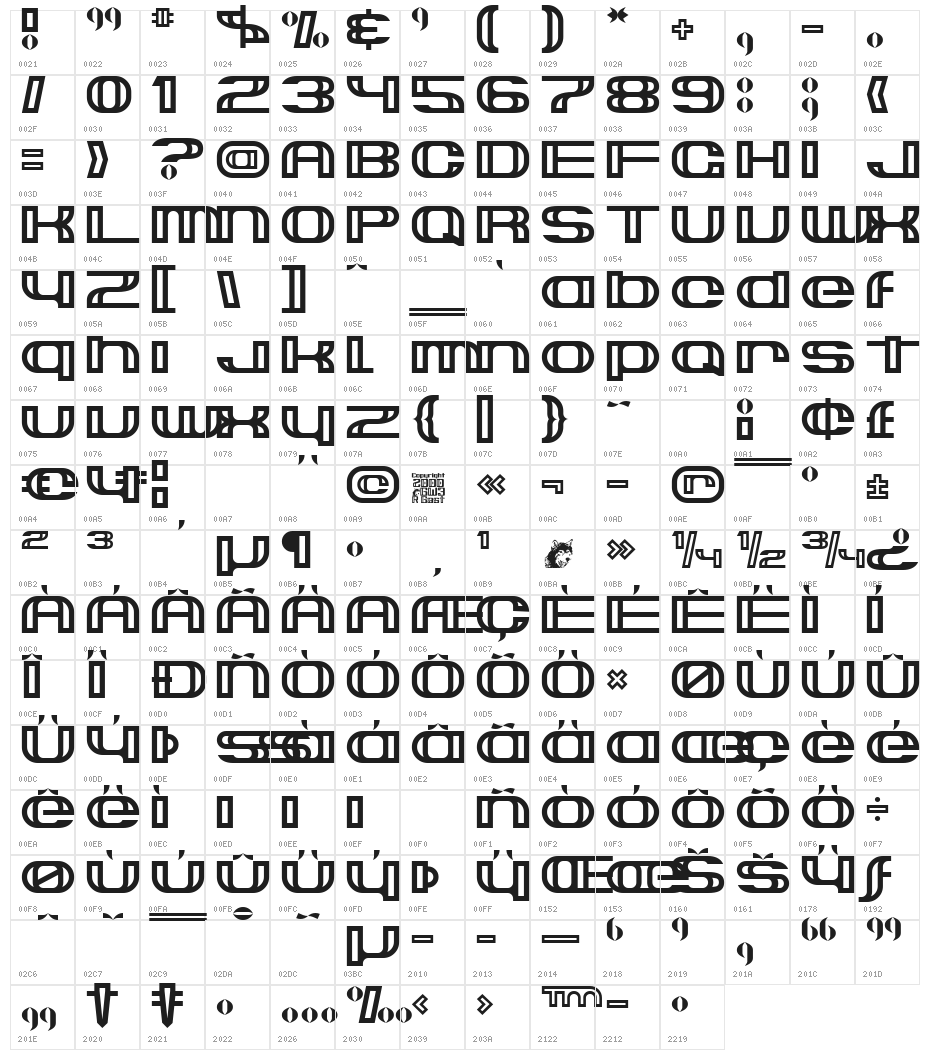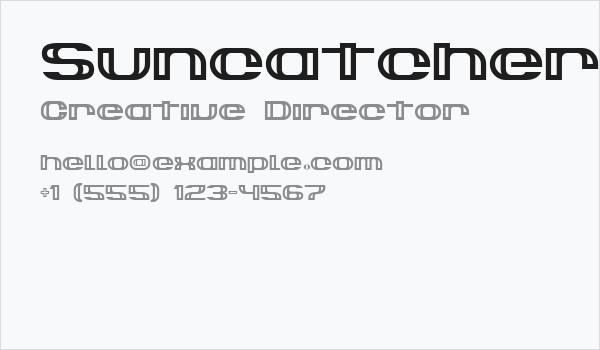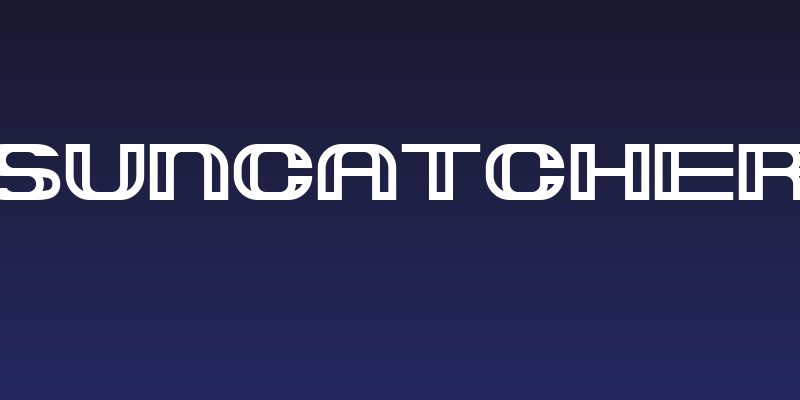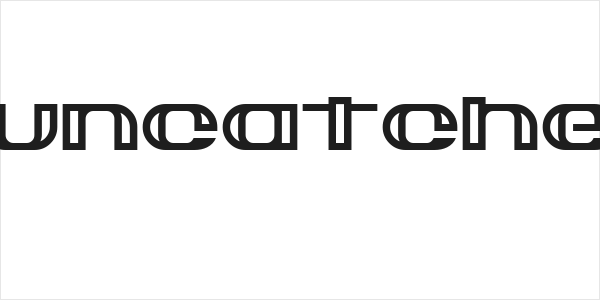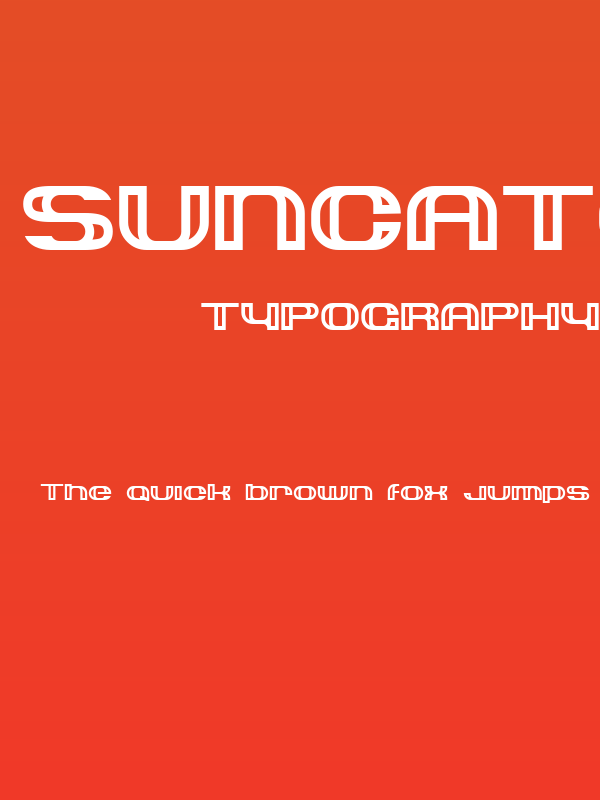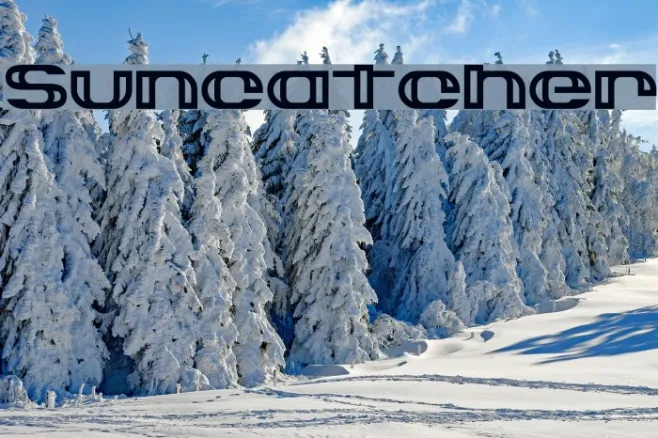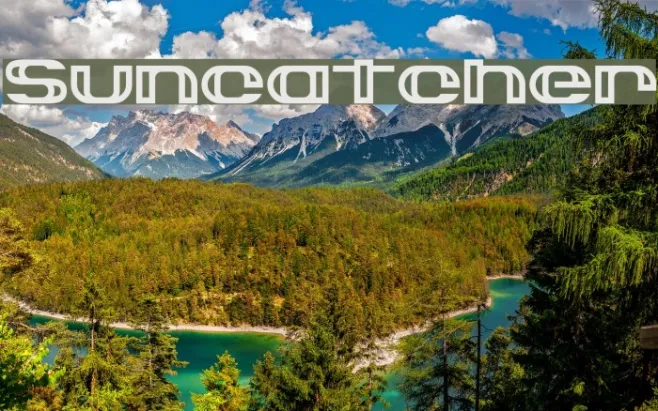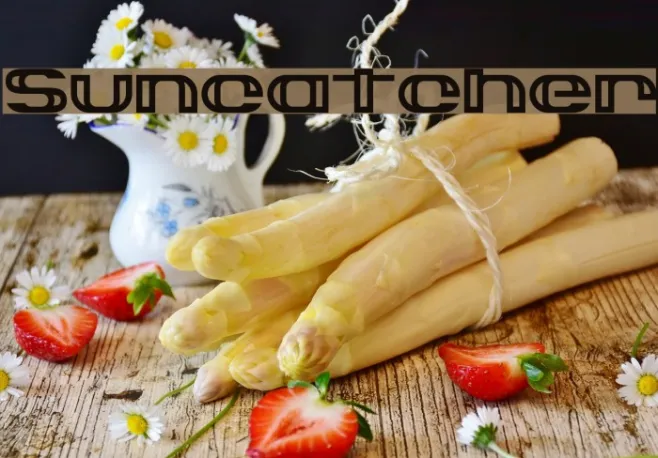
Suncatcher Font
Suncatcher Description
This font features a unique, futuristic design with a geometric structure. The characters are bold and have a distinct, angular appearance, creating a sense of modernity and innovation. The uppercase and lowercase letters maintain a consistent style, with some characters featuring cut-out sections that add to the font's distinctive look. The numerals and special characters follow the same design principles, ensuring uniformity across all glyphs. This font is ideal for projects that require a bold, eye-catching typeface with a modern edge.
| Proposed Projects | Ideal for technology branding, sci-fi movie posters, video game titles, and modern advertising campaigns. |